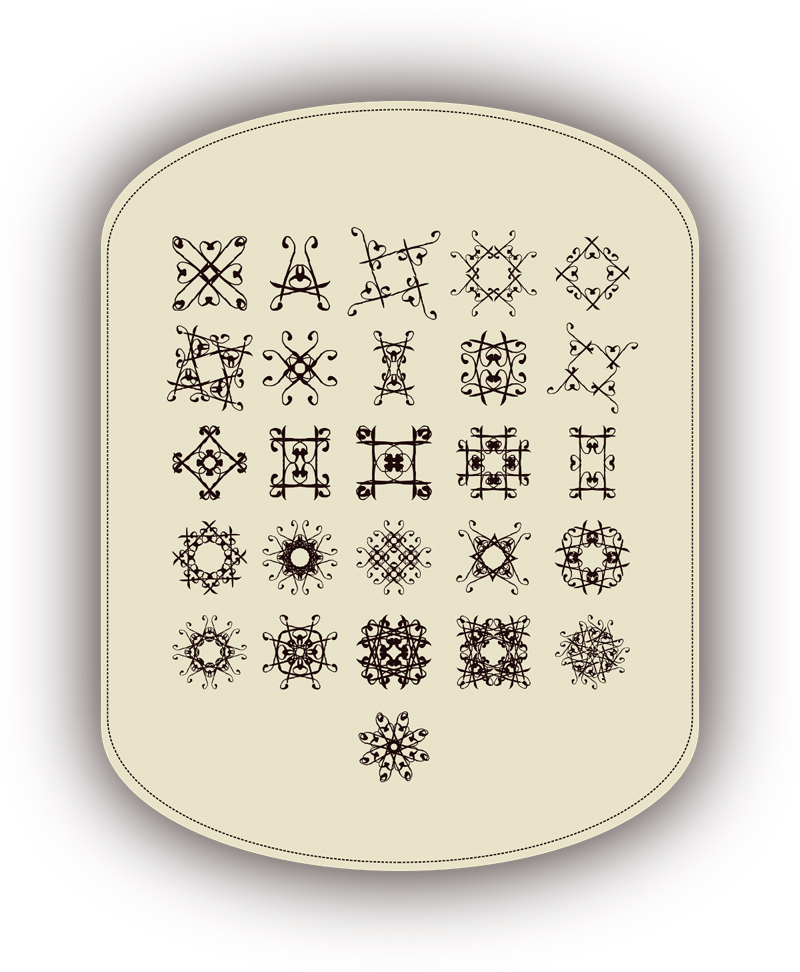
Font name: | SVGfont 1 |
Author: | Aga Silva |
Note by Aga Silva | |
fantasy dingbats, vol.1 -(to be used in layouts instead of a photoshop brush) ~ all glyphs are under keys a-z (lower case) ~ revision 1.2 - Jan 13th 2012 - general cleaning up, tests and file validation. |